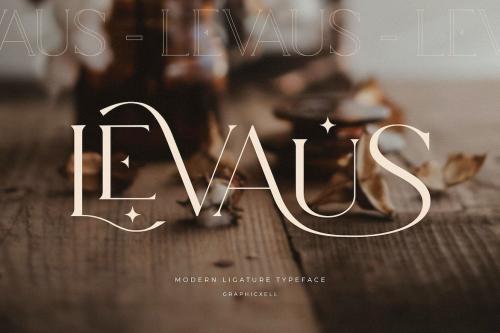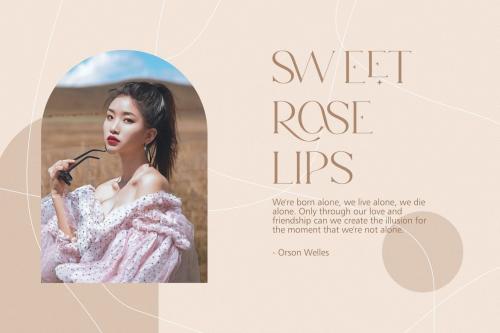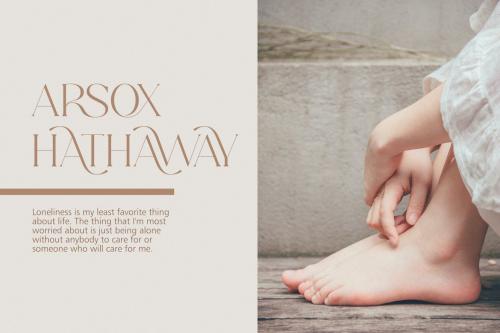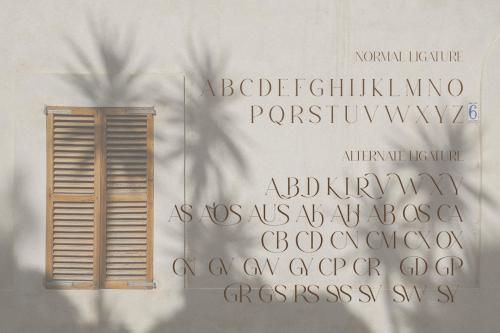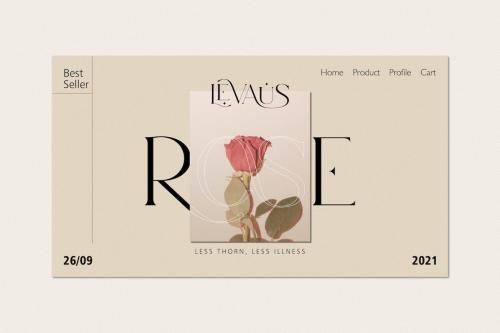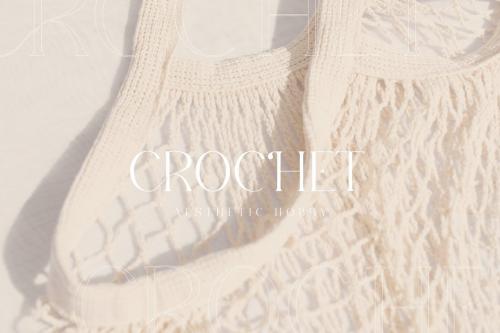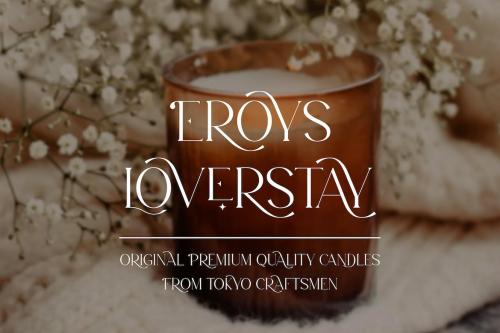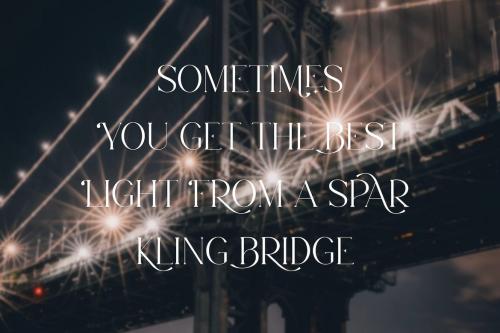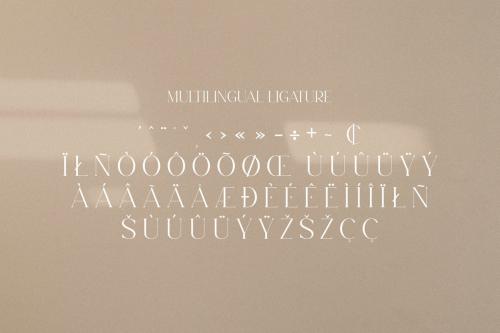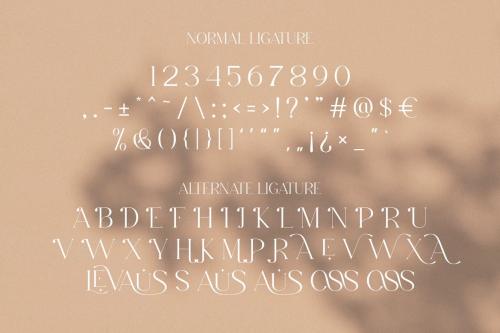
勒瓦度联缀字体
Levaus Ligature Typeface
**Levaus Ligature Typeface** inspired by the famous minimalist logo perfect for the purposes of designing templates, brochures, videos, advertising branding, logos and more.
+ Standard glyphs
+ Ligatures
+ International Accent
Fonts include multilingual support